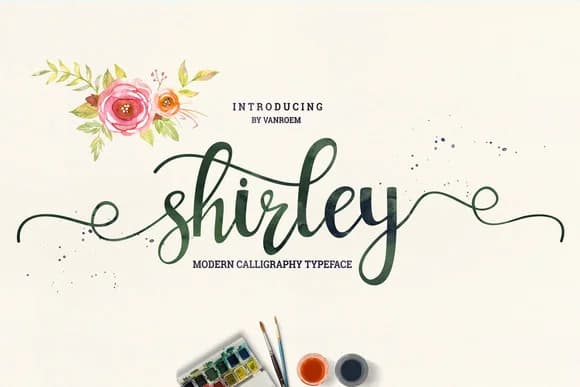
Shirley Font by VanRoem is a flowing handwritten script that combines organic authenticity with refined sophistication. The typeface features naturally connected letterforms and graceful pen-like strokes that convey both polish and warmth. Shirley's distinctive hand-drawn character makes it especially well-suited for wedding invitation suites, handmade greeting card designs, boutique brand identities, and personalized Instagram story text overlays where authentic personality matters. The script performs equally well in digital and print contexts, delivering consistent visual impact across media.
The flowing letterforms capture the appeal of genuine handwriting while maintaining the consistency and legibility required for professional applications. Crafters and designers particularly value Shirley Font's versatility for creating custom merchandise labels, specialty product packaging designs, and vinyl lettering projects that demand visual distinction and character. Whether you're developing a cohesive brand aesthetic across multiple touchpoints or executing individual custom pieces, the font delivers the kind of personality that resonates strongly with audiences seeking design authenticity over corporate polish.
Shirley Font is a script font that shines as a display or heading face. Pair it with a clean sans-serif or serif font for body text β the contrast creates a clear hierarchy while the two styles stay balanced and easy to read.
Shirley Font
by VanRoem